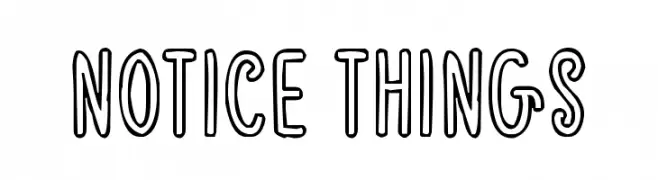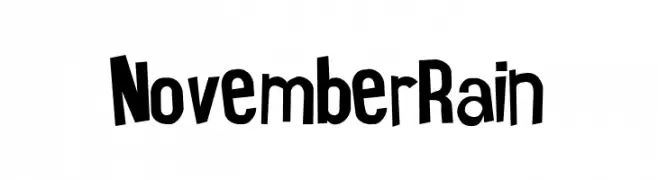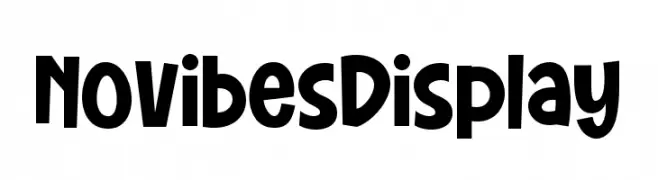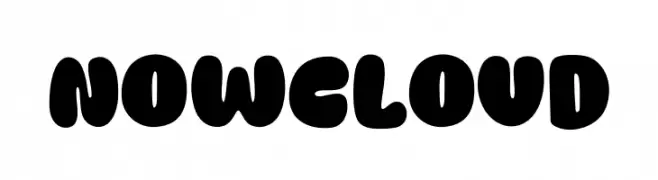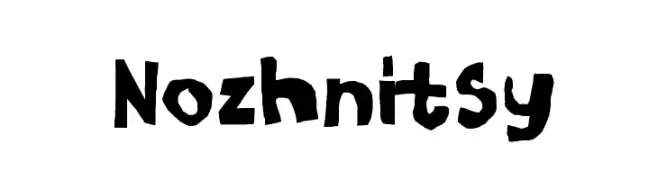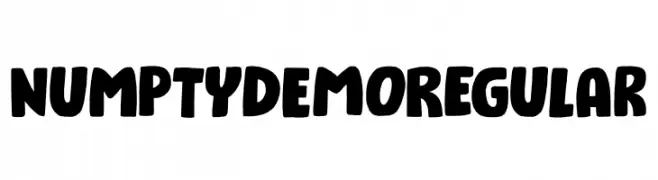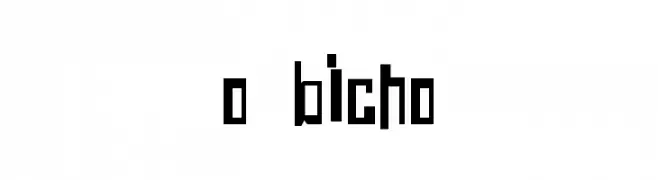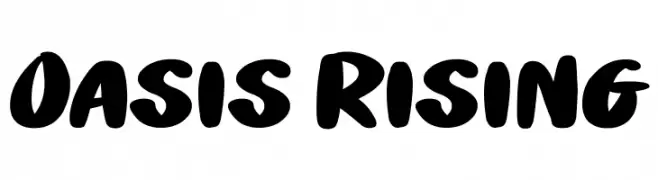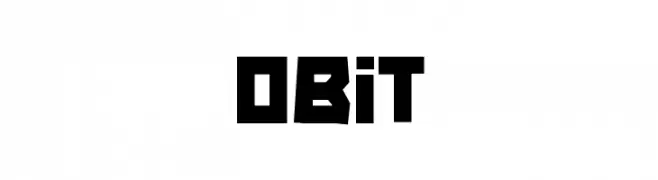
A playful, hand-drawn font with bold, rounded strokes and an outlined, hollow effect.
A bold, playful font with a hand-drawn, irregular style.
A playful, bold font with a hand-drawn, whimsical style.
A bold, rounded font with a playful and friendly style.
A bold, playful font with rounded, bubbly characters.
A bold, playful font with rounded, hand-drawn characters.
A bold, handwritten font with rounded strokes and a playful, dynamic style.
A bold, geometric font with a modern, edgy style.